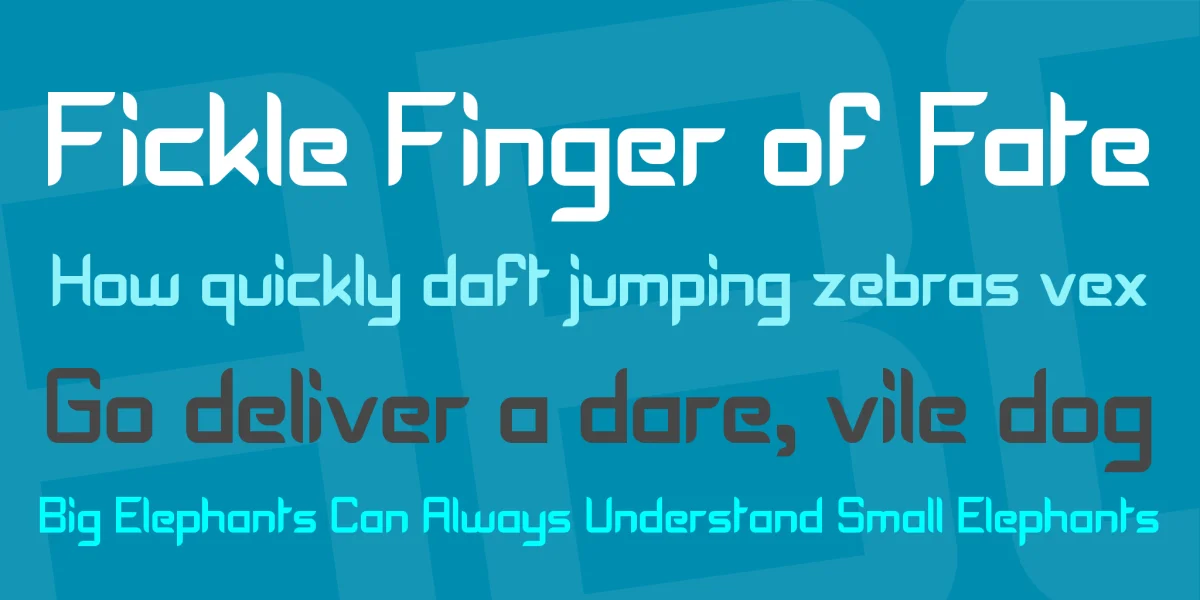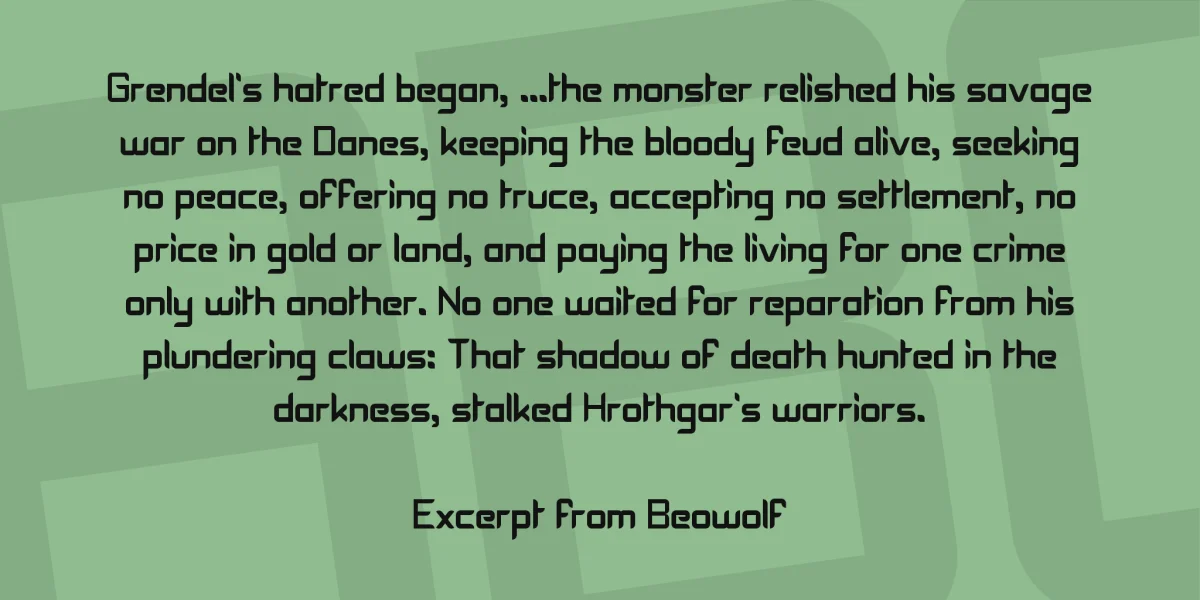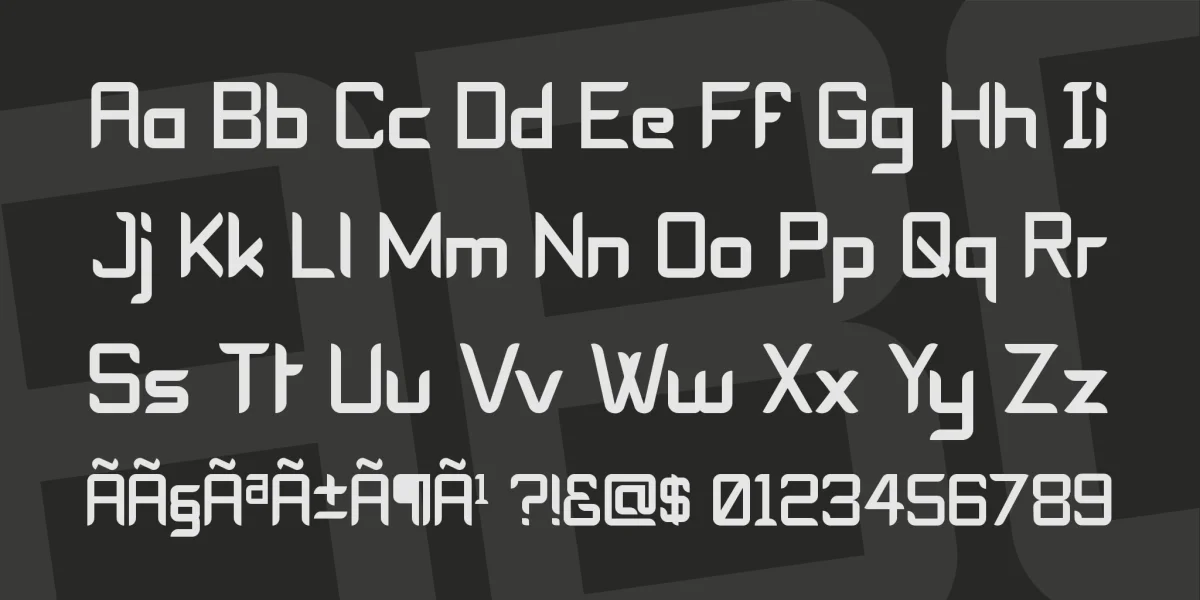
Another gem from Graham Meade's prolific experience.
The moment I saw the first letters Graham sent me, I could easily see them on poignant-reality/making-a-stand posters, like the kind of anti-smoking, pro-life, pro-choice, pro-planet, pro-hell, anti-violence, just-say-no, and you-ought-to-feel-like-shit-if-you-don't-think-this-way stuff that one sees whenever they go about two inches below the surface of anything, not to take away from the fact that lettering like this would be right at home on moshpit signage and proverbial-biker publications.
So Graham does it again. This font is in the same spirit of Duralith, yet its vibe is much sharper and more versatile. If you want to tell your mother to stop telling you what to do for heaven's sake, tell her with this font.